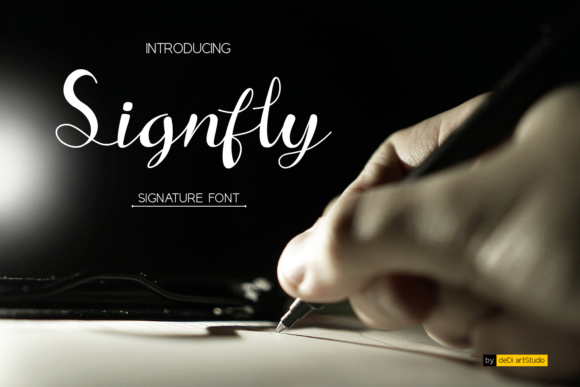
Get ready to turn heads and make a lasting impression with SignFly, the exquisite handwritten font designed to elevate your designs to new heights. Step into a world of timeless elegance and authentic calligraphy, where each letter dances with grace and sophistication.
Unleash your creativity and craft captivating logos that demand attention, or create website headers that exude a touch of sophistication. SignFly's classic style transcends time, making it the perfect choice for projects that aim to leave an unforgettable mark. Embrace the beauty of SignFly and watch your designs soar to new levels of brilliance.
But SignFly is more than just a font; it's a gateway to endless possibilities. Envision invitations that radiate warmth and charm, or social media posts that ignite engagement. The possibilities are boundless, and with SignFly as your creative companion, you'll unlock a world of design magic.
Crafted by the talented hands of deDi artStudio, SignFly embodies the essence of artistic excellence. Its intricate strokes and flowing curves will captivate your audience, leaving them spellbound by the sheer beauty of your creations.
So why settle for ordinary when you can embrace the extraordinary? Choose SignFly and embark on a design journey that will ignite your imagination and leave an indelible mark on the world.